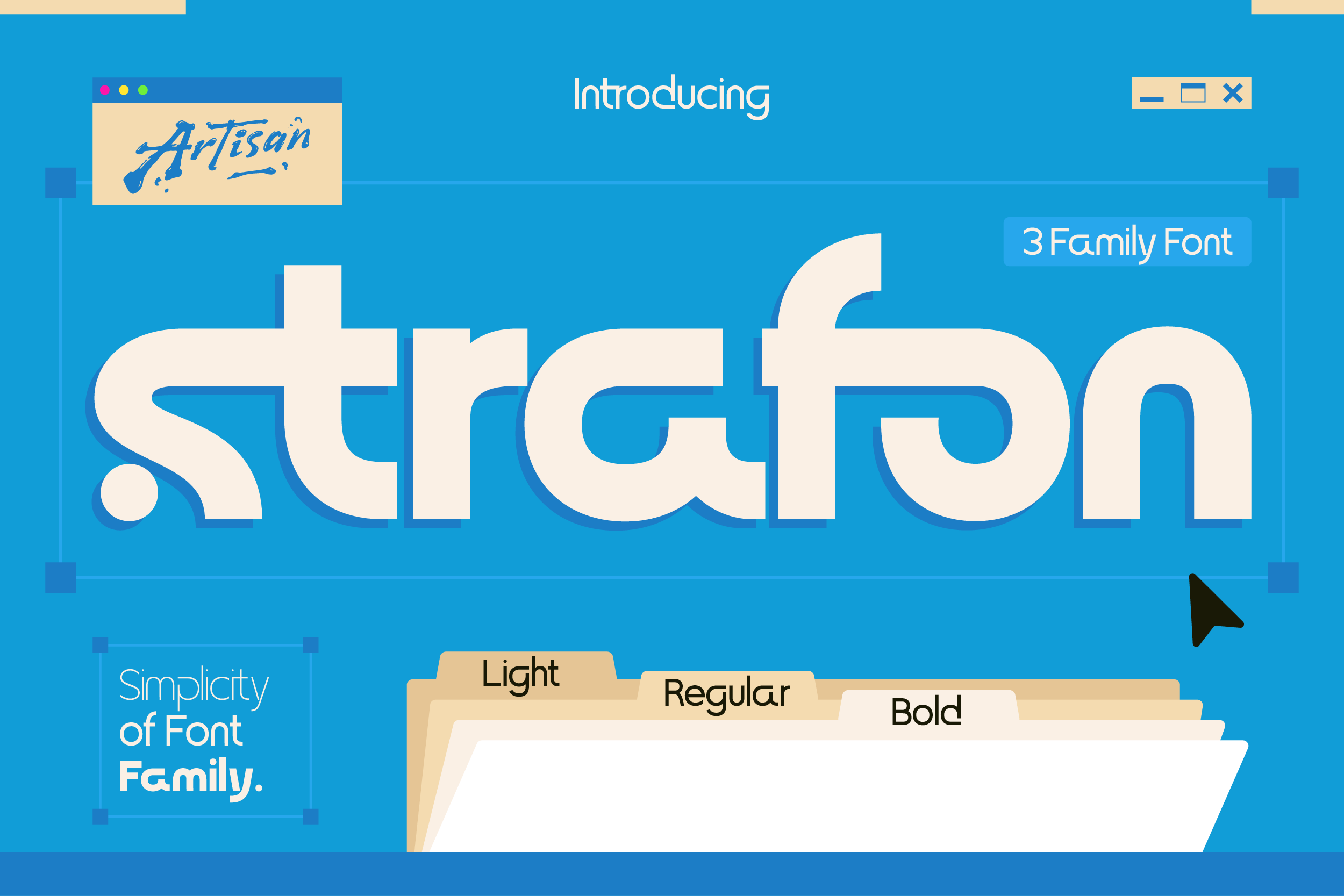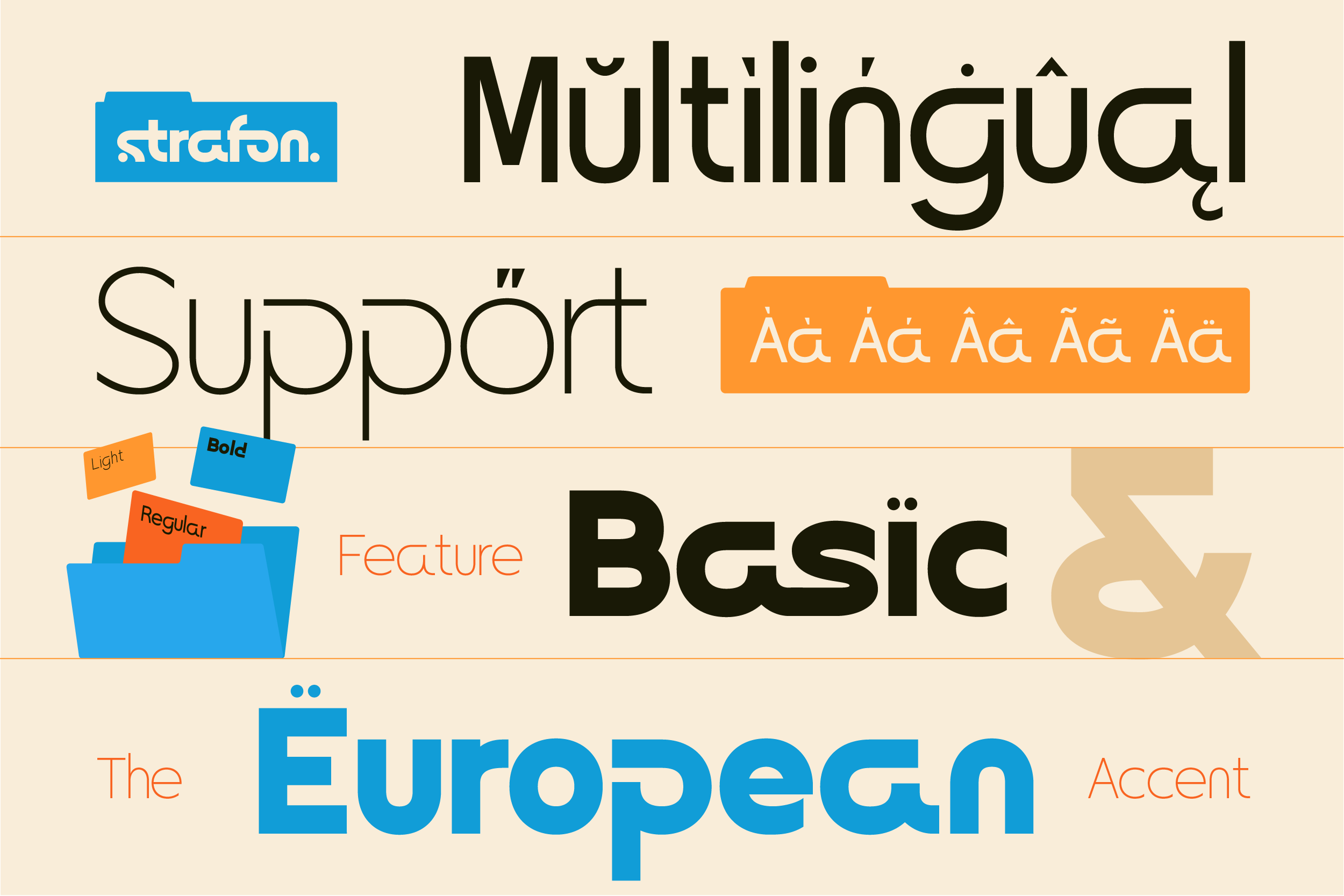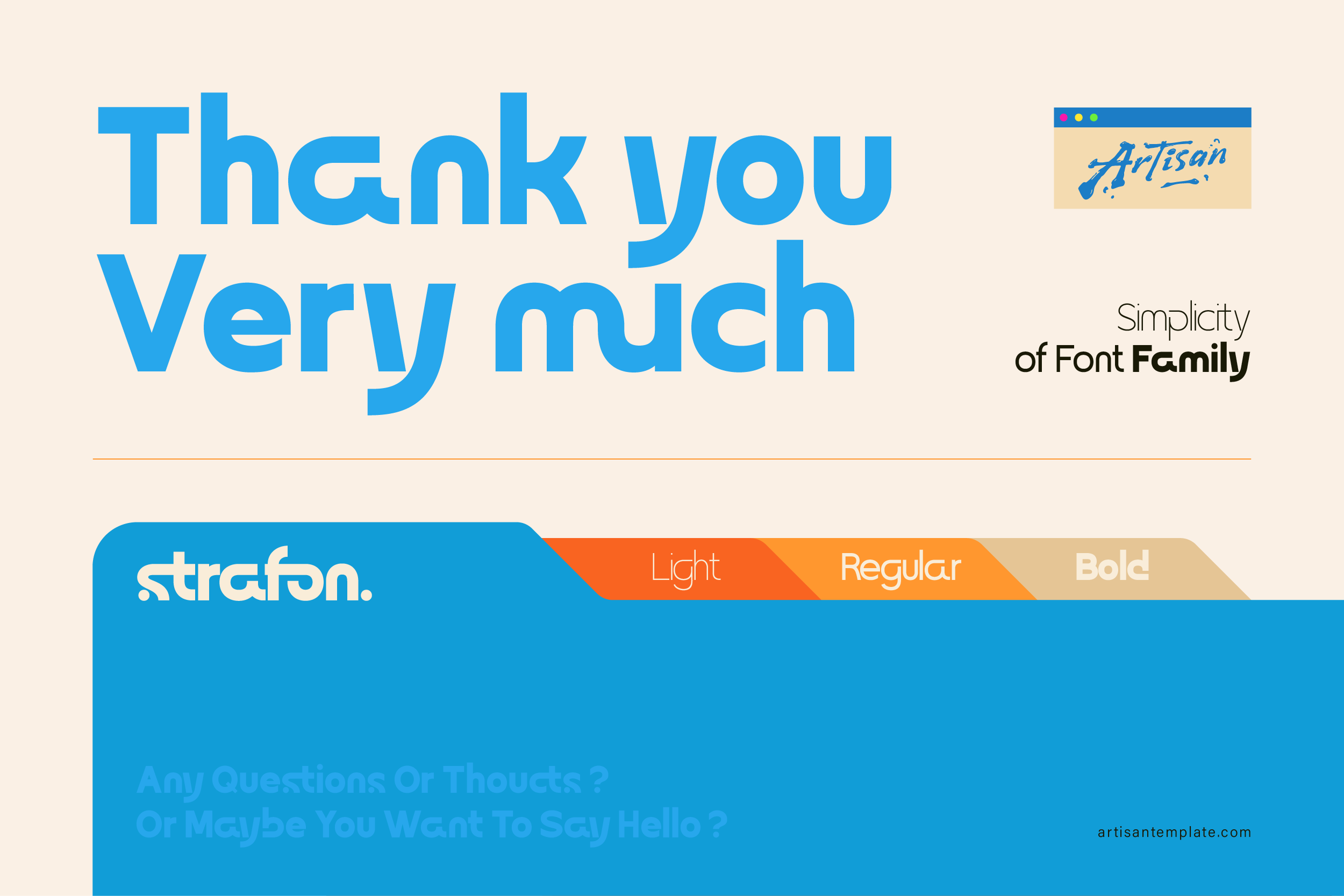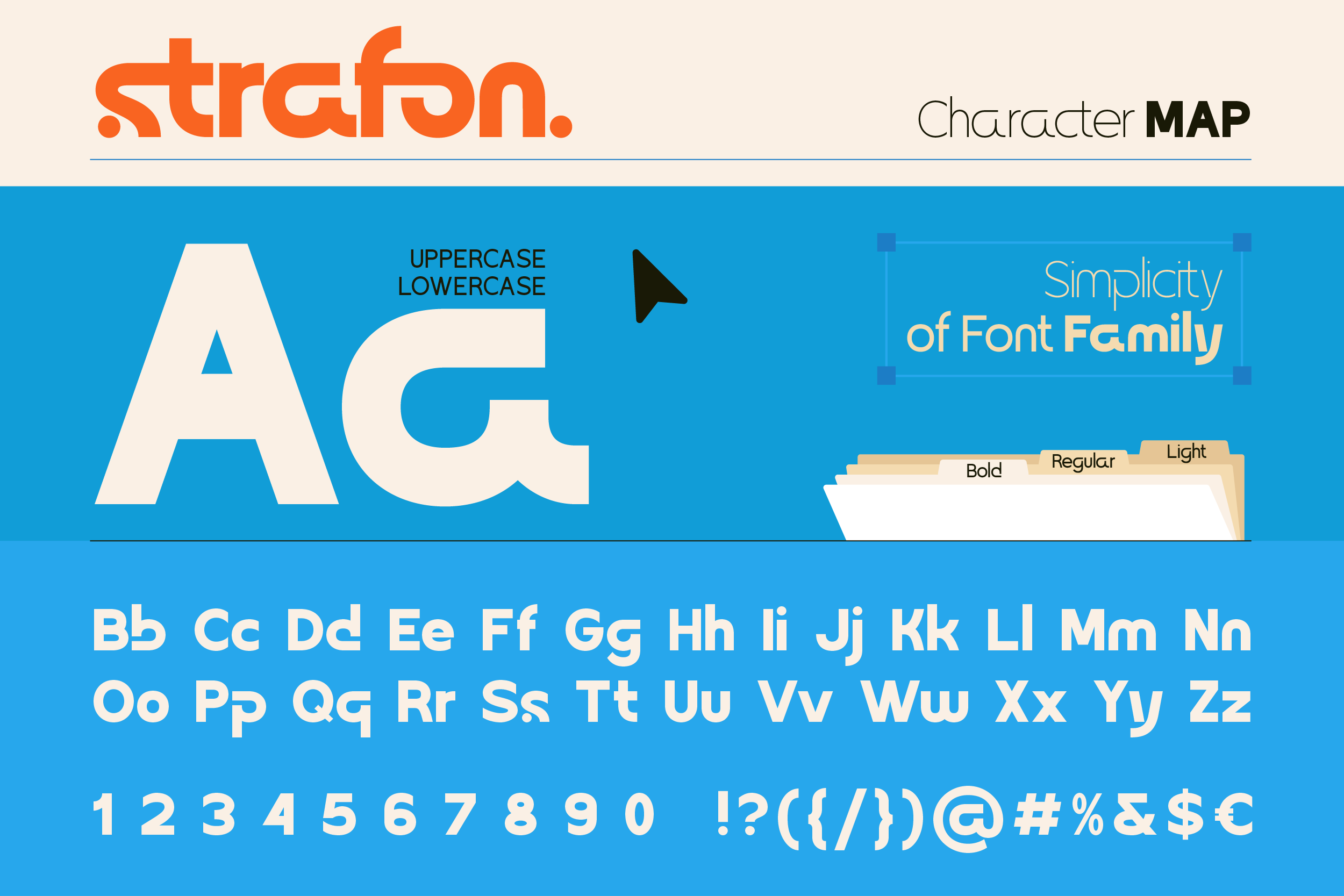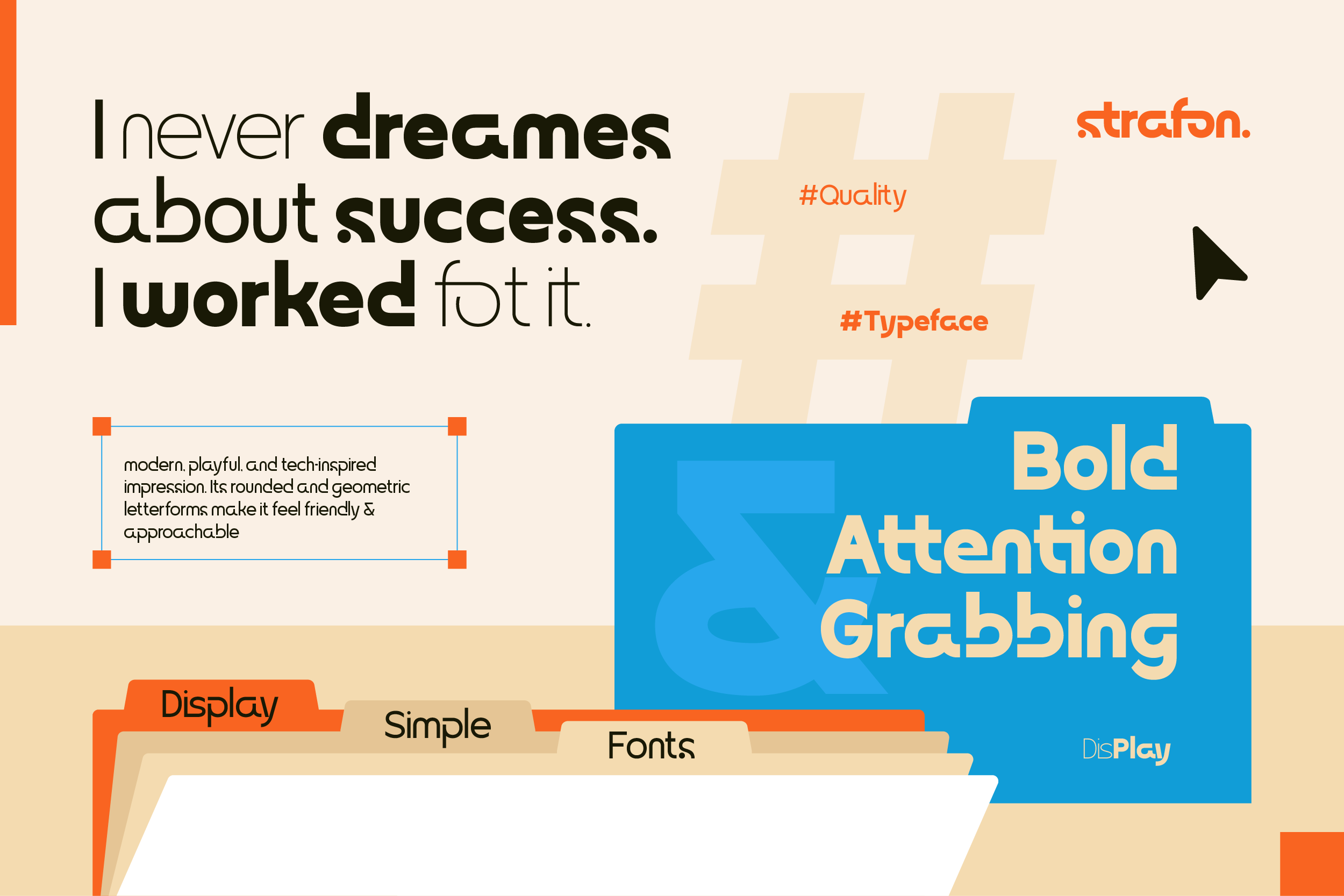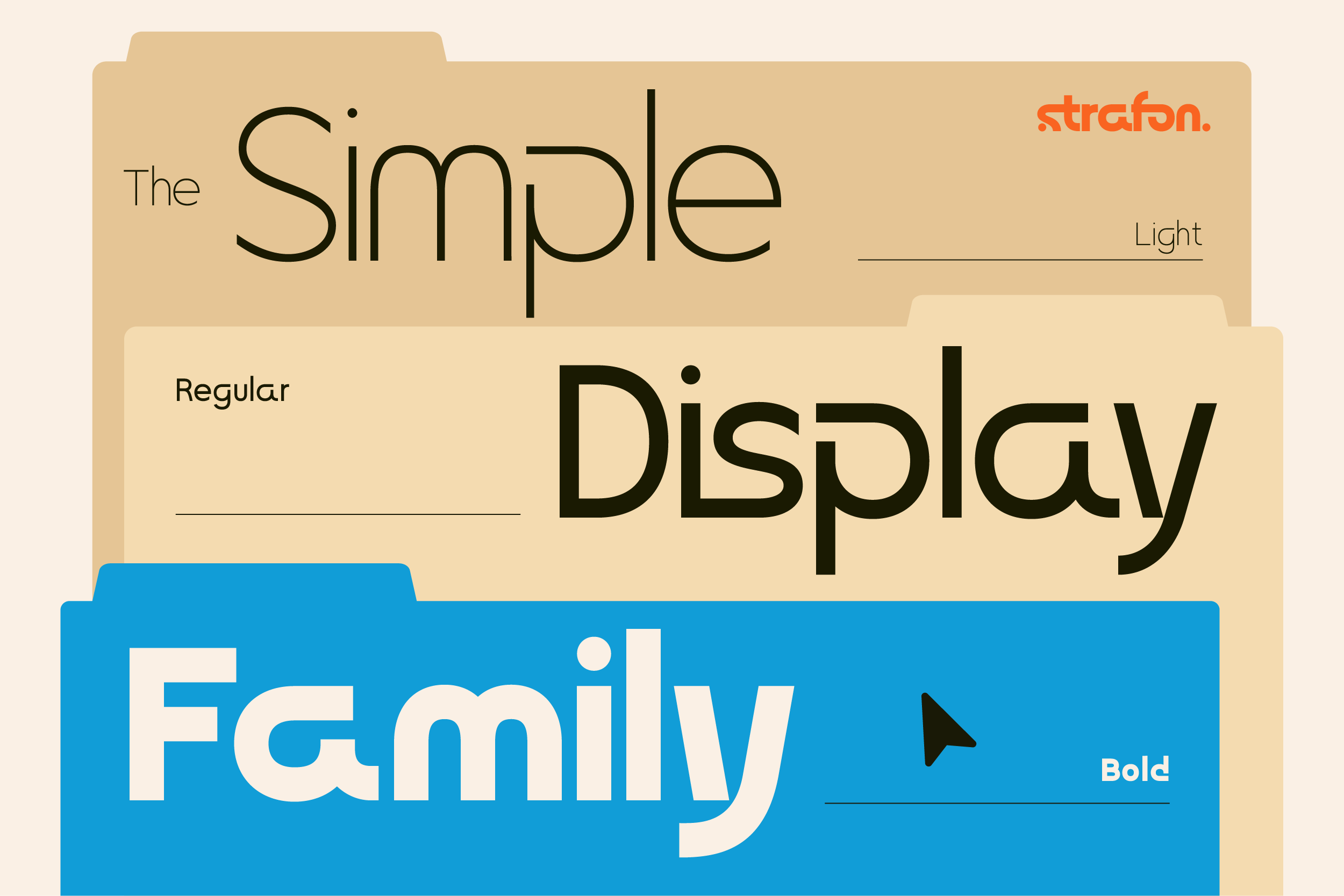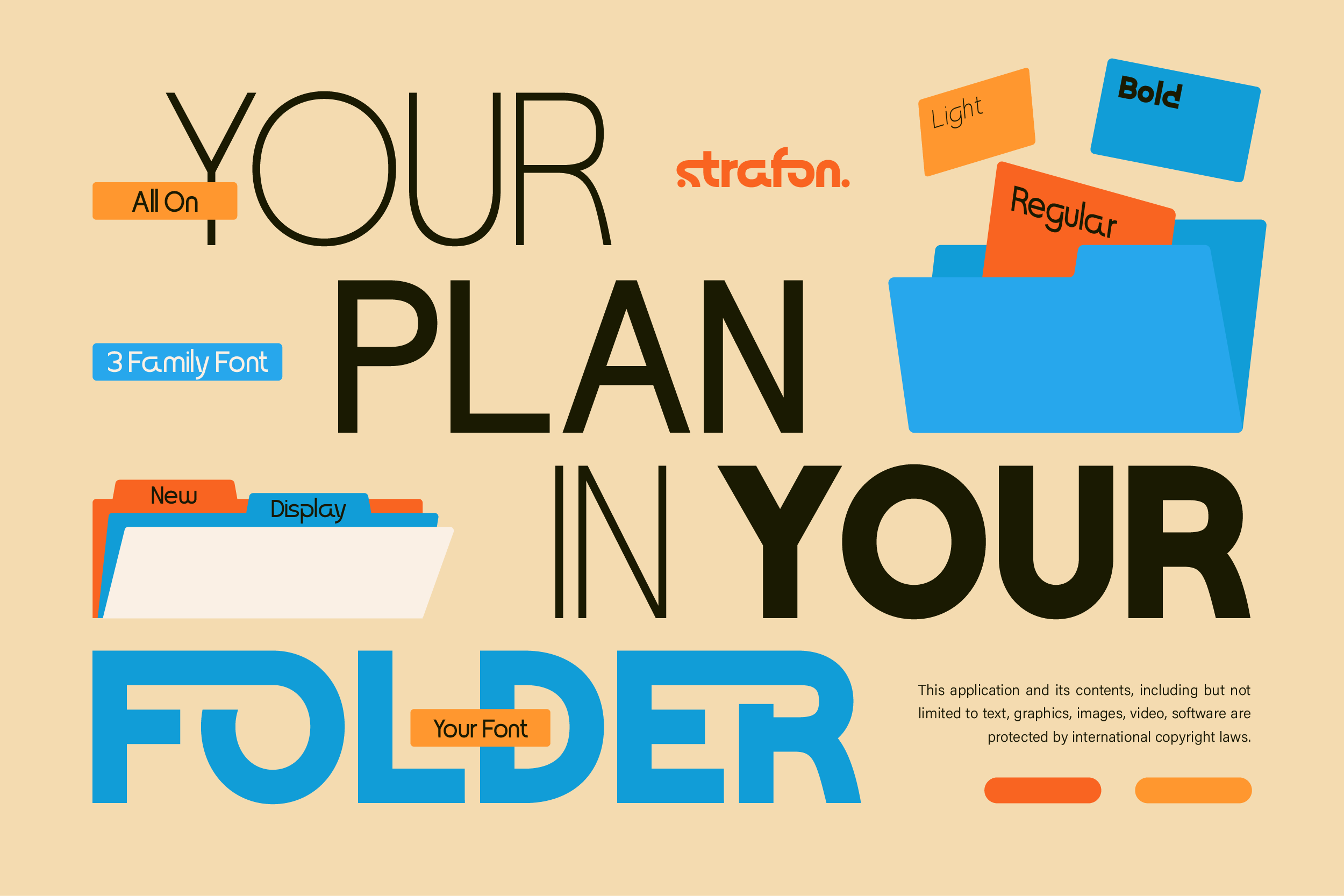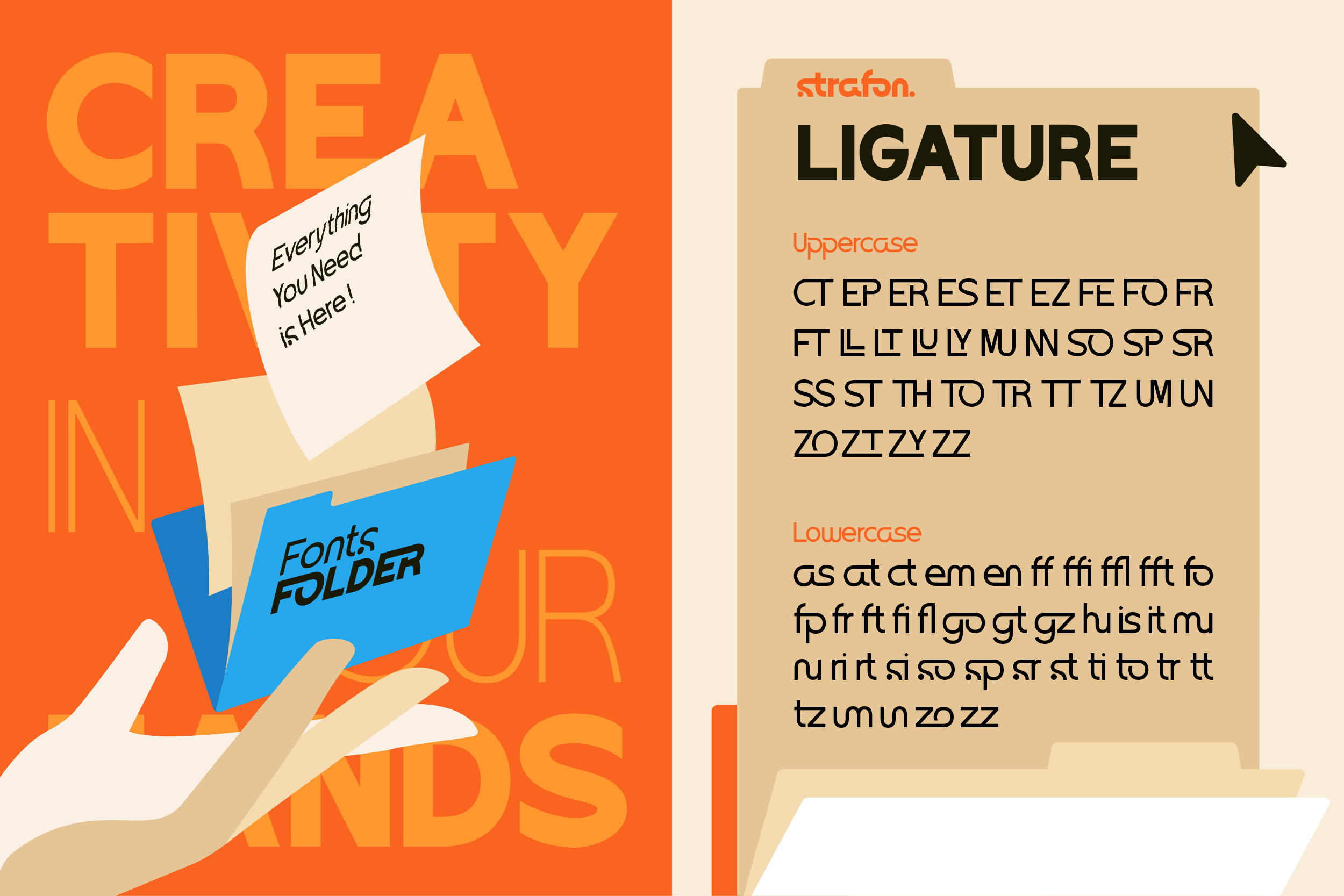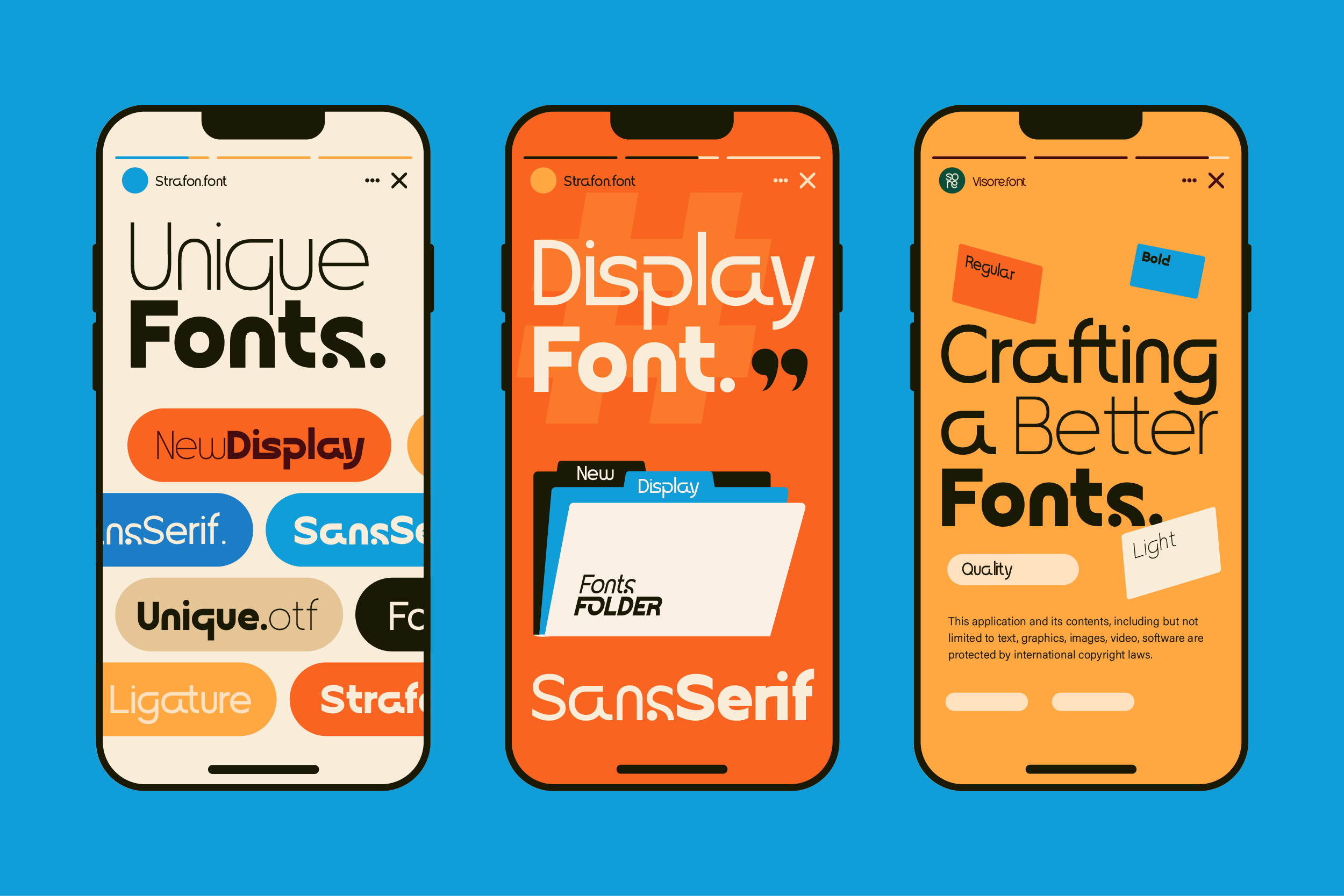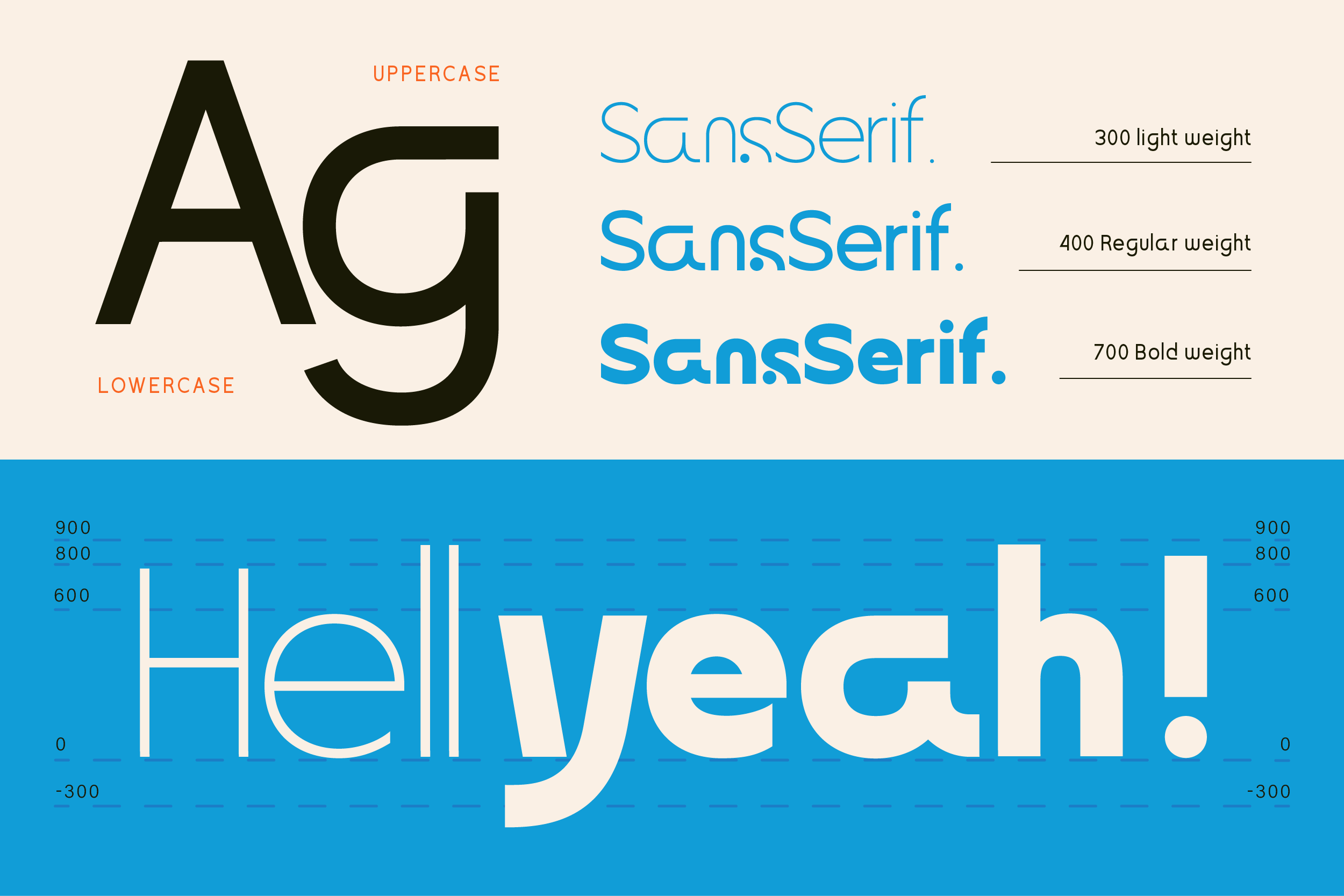
Strafon
Description
Strafon is a clean, modern, and super–versatile display sans serif that instantly gives your design that corporate-but-cool energy. With rounded edges, smooth curves, and a bold futuristic touch, this font family is made to stand out effortlessly.
It comes in 3 weights (Light, Regular, Bold)—perfect for creating logos, headlines, branding systems, UI design, and anything that needs a structured yet friendly vibe. Inspired by folder shapes and organized layouts, Strafon brings clarity, style, and personality into one cohesive font family.
If you’re aiming for something professional, stylish, and fresh, Strafon is the font that gets the job done.
Perfect For
• Logo design & corporate branding
• Tech startups & digital companies
• UI/UX design & mobile apps
• Website headers & landing pages
• Business presentations
• Modern advertising & marketing materials
• Editorial layouts & magazines
• Packaging design
• Social media graphics
• Minimalist design projects